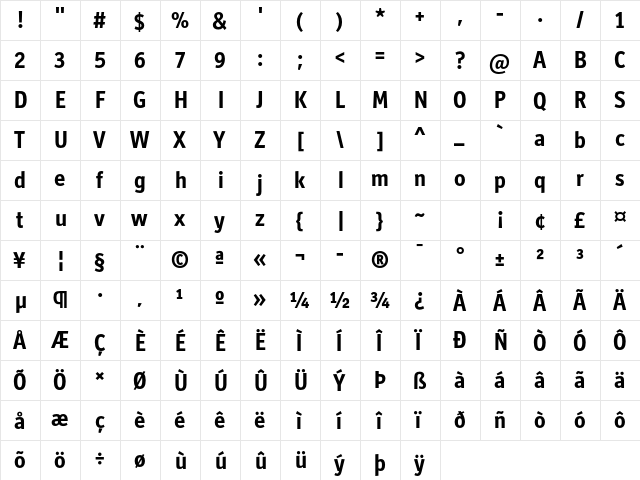
Officina Display ITC Std Bold
| Foundry | International Typeface Corporation |
| Designer | Erik Spiekermann |
Design Context for Officina Display ITC Std Typeface
Officina Display ITC Std brings ornamental detail and strong personality to headlines and identities, where visual impact matters more than quiet functionality. Its bold stroke weight gives it real presence on the page.
Font Pairing: Pair with a clean neutral sans-serif for body copy to let Officina Display ITC Std's character lead without overwhelming the composition.
Pro Tip: Use Officina Display ITC Std exclusively at display sizes — it was designed to be seen, not read at length. Let a neutral companion handle body copy.